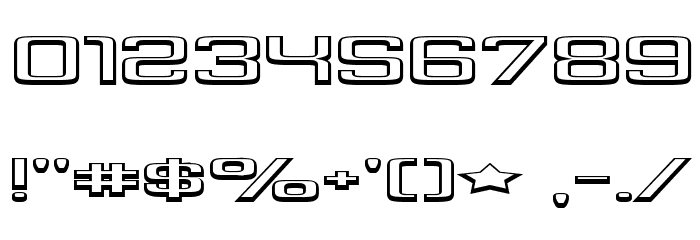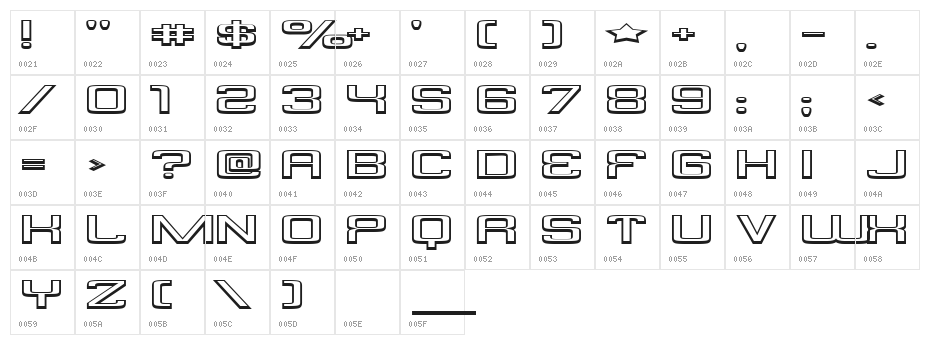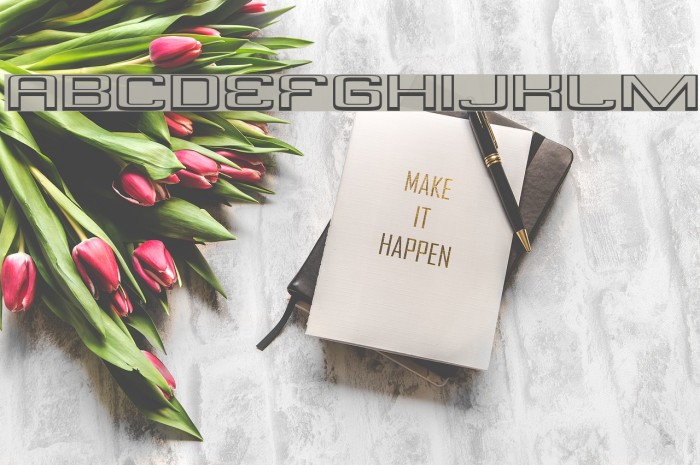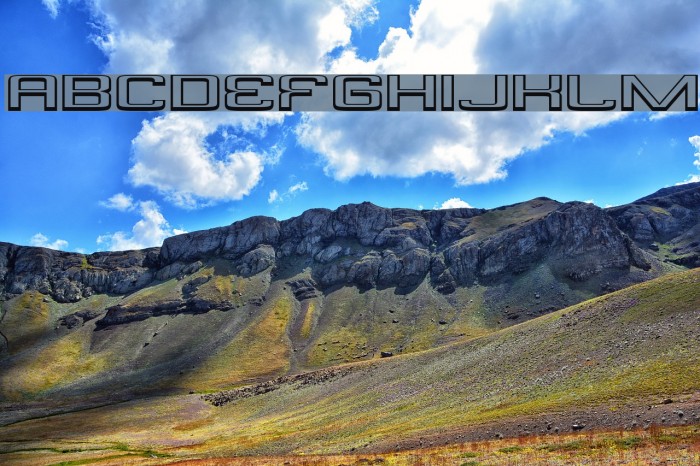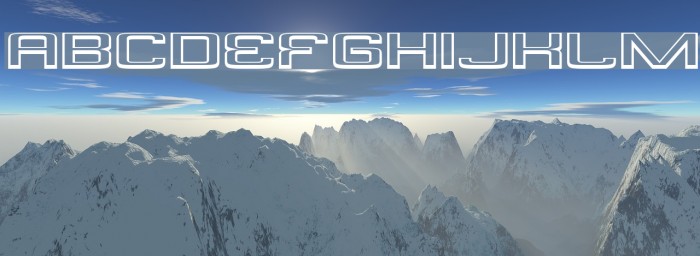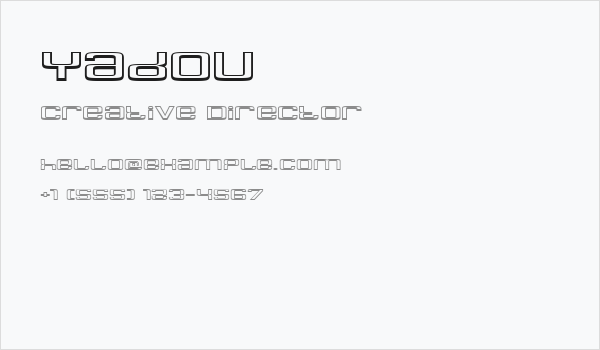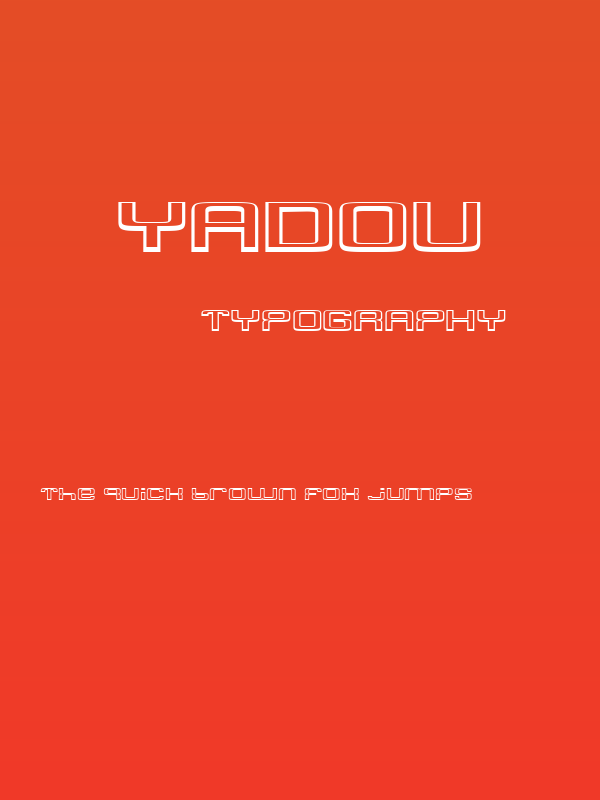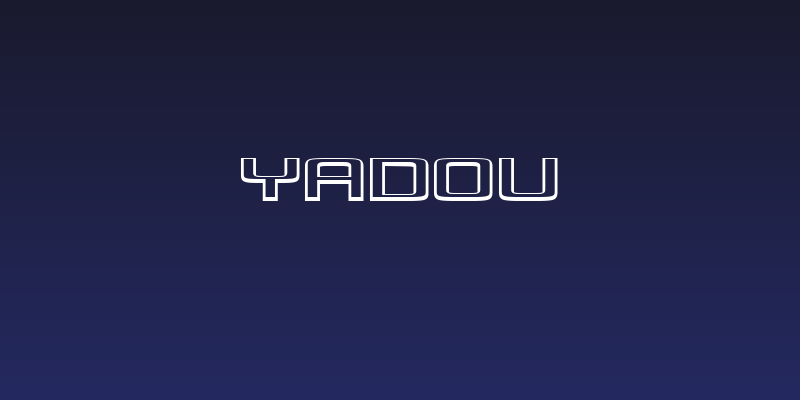
Yadou Font
Yadou Description
This font features a modern, futuristic design with a hollow, outlined structure that gives it a unique and eye-catching appearance. The characters are geometric and uniform, with consistent line thickness throughout. The uppercase and lowercase letters maintain a cohesive style, while the numerals and special characters complement the overall aesthetic. The font's clean lines and open spaces make it suitable for digital and print media, where a contemporary and innovative look is desired.
Proposed ProjectsIdeal for tech branding, digital media, futuristic posters, and innovative product packaging.